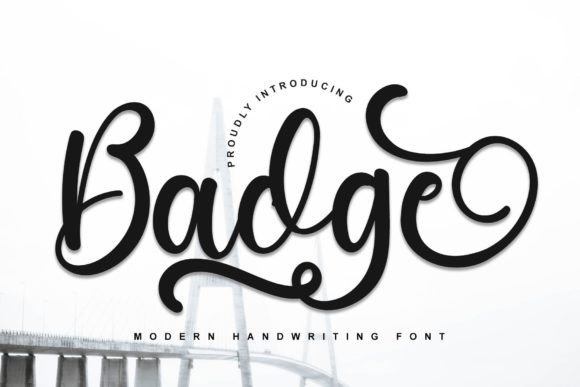
Adorn your creative projects with the exquisite Badge Font, a breathtaking script font family that exudes elegance and sophistication. Handcrafted by the talented YanStudio, Badge is a visual masterpiece that will transform your designs into works of art.
Immerse yourself in the beauty of Badge's distinct and meticulously balanced letters, each meticulously crafted to convey a sense of harmony and grace. Its flowing lines and delicate curves lend a touch of enchantment to any project, adding a personal touch that captivates and inspires.
With its incredibly versatile style, Badge effortlessly adapts to a wide range of creative endeavors. Whether you're designing logos, invitations, posters, branding materials, or simply adding a touch of charm to your social media posts, Badge seamlessly elevates your creations to new heights of sophistication.
Unleash your creativity and let Badge's enchanting allure enhance your designs. This font is not just a tool; it's an extension of your artistic expression, a vessel through which your imagination can soar. Embrace the boundless possibilities that await you with Badge Font.
Experience the magic of Badge Font today and embark on a creative journey like never before. Its captivating beauty and endless versatility will leave you spellbound, transforming your designs into masterpieces that resonate with elegance and grace.